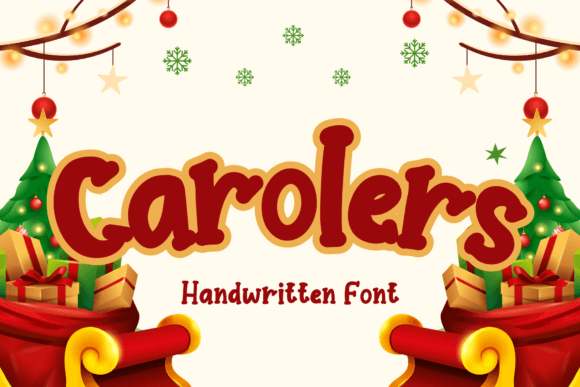
Introducing Carolers Font, the ultimate choice for adding a touch of playfulness and authenticity to your creative projects! This captivating handwritten font, created by Brown Cupple Fonts, is here to elevate your designs and captivate your audience.
Carolers Font is not your average script font. It is a unique blend of elegance and whimsy, making it perfect for a wide range of uses. Whether you're working on a video project, blog posts, logos, branding, ads, invitations, greeting cards, planners, photo albums, decorations, or any other creative endeavor, Carolers Font will surely elevate your designs to new heights.
With its natural and organic strokes, Carolers Font brings a sense of warmth and personality to your text. Each letter is carefully crafted to maintain its authenticity, giving your designs a handcrafted feel that is simply irresistible. Say goodbye to generic and lifeless fonts, as Carolers Font injects life and character into every project.
But why stop at just one project? Carolers Font is incredibly versatile and can be used across a variety of mediums. Its versatility allows you to seamlessly transition from one project to another, ensuring that your designs remain consistent and visually appealing. From digital platforms to physical prints, Carolers Font shines in every context.
By incorporating Carolers Font into your designs, you are not only adding a visually stunning element but also evoking emotions and creating a memorable experience for your audience. Its captivating charm will leave a lasting impression and make your designs stand out from the crowd.
Don't settle for ordinary fonts when you can have the best. Carolers Font is the epitome of excellence, combining style, personality, and versatility in one package. Discover the power of Carolers Font and take your designs to the next level. Download now and embark on a journey of creative exploration like never before.